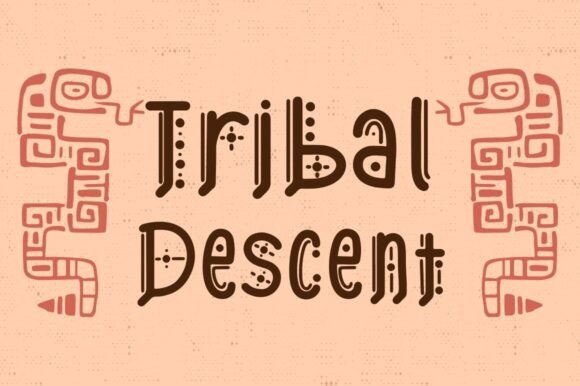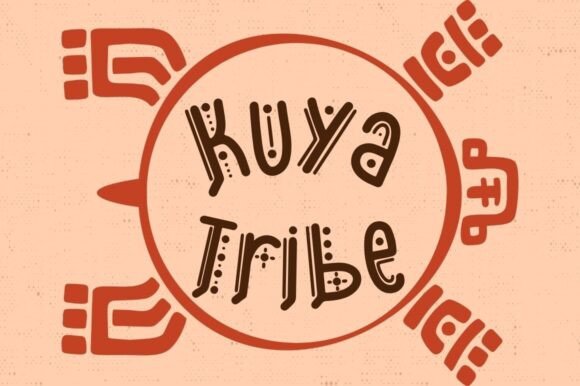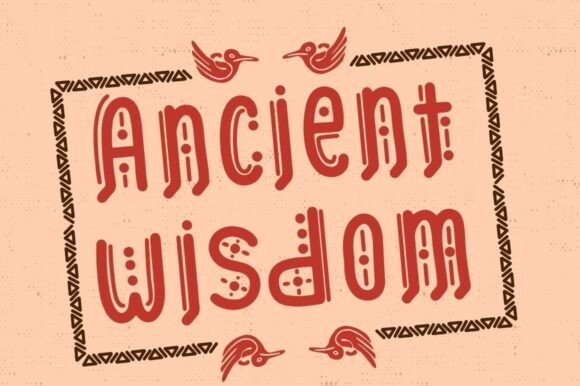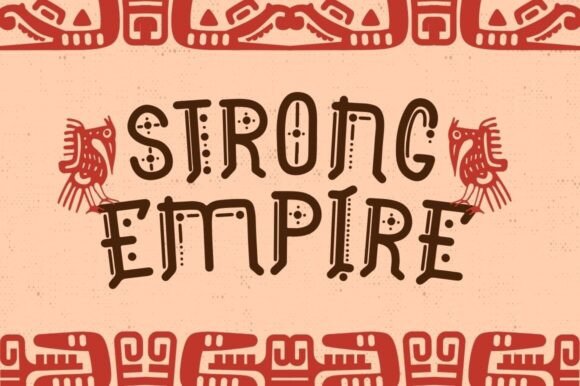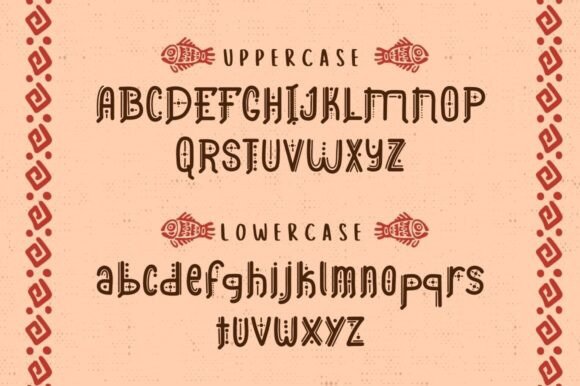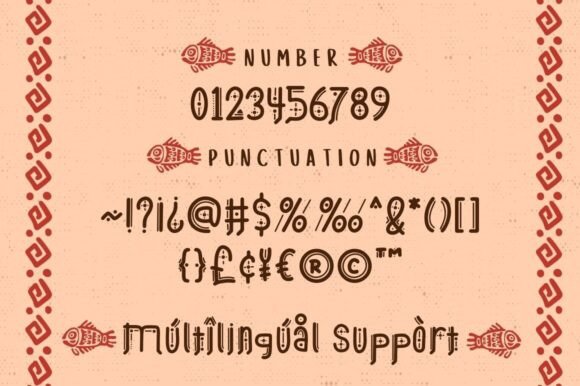
Unleash the Power of Ancient Civilizations with Aztec Line Font
Step into the grandeur of ancient civilizations with Aztec Line, a striking ancient display font inspired by the rich artistry of the Aztec culture. This majestic font is perfect for designers and crafters looking to add a sense of power, tradition, and untamed spirit to their typography. In this article, we’ll explore the world of Aztec Line Font, its features, and the various ways you can use it to elevate your designs.
The Inspiration Behind Aztec Line Font
The Aztec civilization was known for its stunning artistry, architecture, and intricate designs. Aztec Line Font draws inspiration from the iconic symbols, patterns, and glyphs that adorned Aztec temples, pottery, and textiles. The font’s creator aimed to capture the essence of Aztec art, translating its complex and beautiful designs into a modern, usable font.
Key Features of Aztec Line Font
- Ancient Display Font: Aztec Line Font is designed to make a statement. Its bold, striking lines and intricate details evoke the grandeur of ancient civilizations.
- Aztec-Inspired Glyphs: The font features a range of glyphs inspired by Aztec symbols, including calendar stones, feathered serpents, and other iconic motifs.
- Multilingual Support: Aztec Line Font supports multiple languages, making it a versatile choice for designers working on international projects.
- Customizable: The font comes with a range of variations, allowing you to experiment with different styles and effects to suit your design needs.
Perfect for Historical Branding and Design Projects
Aztec Line Font is an excellent choice for designers working on historical branding, adventure posters, tribal-themed merchandise, museum exhibits, and epic game designs. The font’s bold, attention-grabbing style is perfect for:
- Historical Branding: Add a touch of authenticity to your historical brand with Aztec Line Font. Use it to create logos, business cards, and marketing materials that evoke the grandeur of ancient civilizations.
- Adventure Posters: Create eye-catching posters and flyers for adventure-seekers with Aztec Line Font. The font’s bold style is perfect for highlighting exotic destinations, thrilling activities, and unforgettable experiences.
- Tribal-Themed Merchandise: Design unique and stylish merchandise, such as t-shirts, mugs, and tote bags, with Aztec Line Font. The font’s tribal-inspired glyphs will add an edgy touch to your products.
- Museum Exhibits: Use Aztec Line Font to create engaging and informative exhibits for museums and cultural institutions. The font’s historical accuracy and attention to detail will add depth and authenticity to your displays.
- Epic Game Designs: Add a sense of epic grandeur to your game designs with Aztec Line Font. Use it to create titles, menus, and other UI elements that evoke the power and mystery of ancient civilizations.
Tips for Using Aztec Line Font
To get the most out of Aztec Line Font, follow these tips:
- Use it sparingly: Aztec Line Font is a bold, attention-grabbing font. Use it sparingly to avoid overwhelming your design.
- Experiment with colors: The font’s intricate details and glyphs look stunning in a range of colors. Experiment with different color schemes to find the perfect combination for your design.
- Pair it with contrasting fonts: Pair Aztec Line Font with contrasting fonts to create visual interest and add depth to your design.
| Font Name | Aztec Line Font |
| Author | attypestudio |
Aztec Line Font is a powerful and versatile font that brings the grandeur of ancient civilizations to your typography. With its intricate details, Aztec-inspired glyphs, and bold style, this font is perfect for designers and crafters working on historical branding, adventure posters, tribal-themed merchandise, museum exhibits, and epic game designs. By following the tips outlined in this article, you’ll be able to unlock the full potential of Aztec Line Font and create stunning designs that evoke the power and mystery of ancient civilizations.